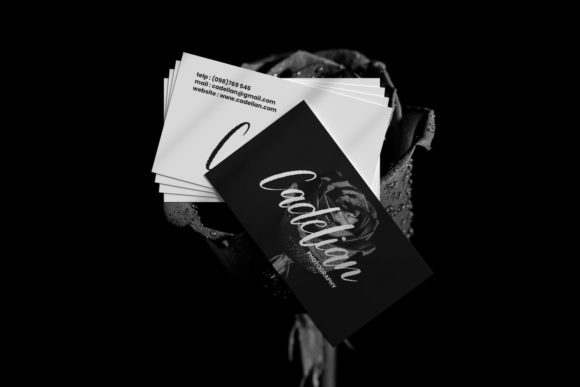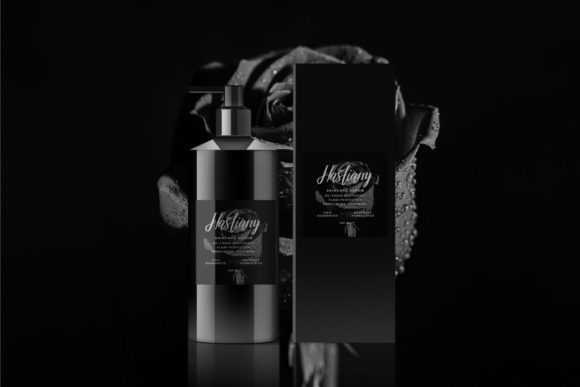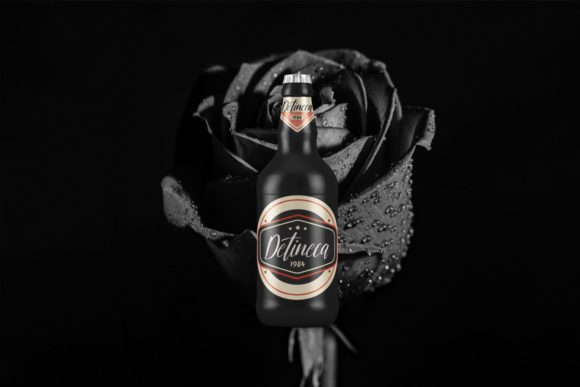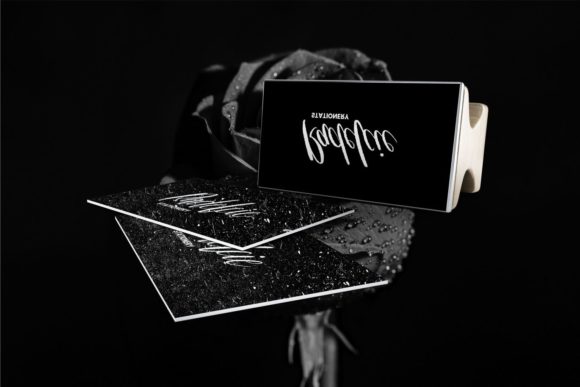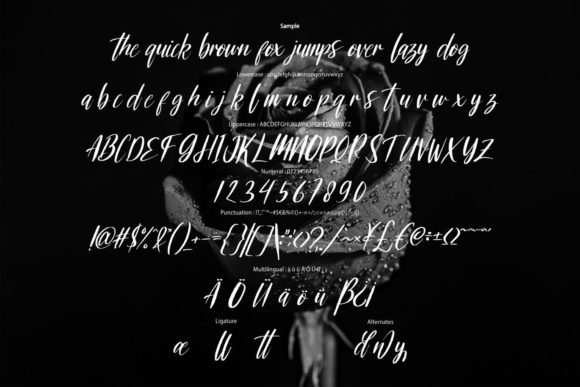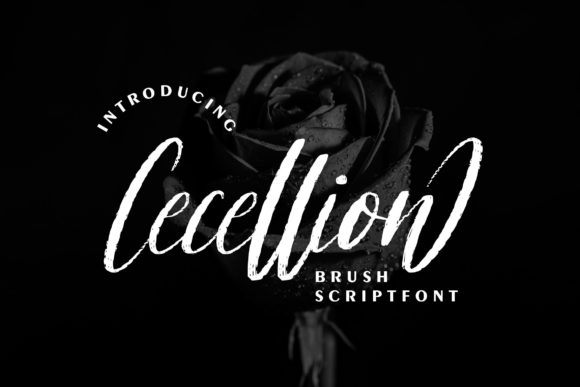
Cecellion Font: Elevate Your Designs with a Casual yet Stylish Handwritten Touch
In the world of design, fonts play a pivotal role in conveying messages, evoking emotions, and creating lasting impressions. Among the myriad of fonts available, Cecellion stands out as a casual and stylish handwritten font that has been gaining popularity among designers and crafters alike. This beautiful font is not just a typeface; it’s an artistic statement that can breathe life into your designs, making them more engaging and visually appealing.
The Unique Charm of Cecellion
Cecellion is characterized by its unique and beautiful touch, which sets it apart from more conventional fonts. Every letter in the Cecellion font has been crafted with care to ensure that it carries a distinct personality. This distinctiveness makes Cecellion an excellent choice for creating eye-catching logos, branding materials, and quotes that stand out in a crowd.
One of the key advantages of the Cecellion font is its versatility. Whether you’re working on a project that requires a modern and fresh feel or something more traditional and elegant, Cecellion can adapt to your needs. Its casual yet stylish nature makes it suitable for a wide range of design applications, from digital media to print materials.
Applications of Cecellion Font
So, where can you use the Cecellion font? The possibilities are endless:
- Logos and Branding: Create memorable logos and branding materials that reflect your brand’s personality with Cecellion’s unique touch.
- Quotes and Typography: Add a personal and artistic touch to your quotes and typography projects, making them more engaging and shareable.
- Digital and Print Media: Use Cecellion in your digital content, such as blog posts, social media graphics, and email newsletters, as well as in print materials like brochures, posters, and business cards.
- Crafting and DIY Projects: If you’re into crafting or DIY projects, Cecellion can add a professional and personalized touch to your handmade cards, journals, and other creative endeavors.
Why Choose Cecellion?
With so many fonts available, why should Cecellion be your go-to choice? Here are a few reasons:
- Uniqueness: Cecellion offers a fresh and unique aesthetic that can help your designs stand out.
- Readability: Despite its artistic nature, Cecellion maintains a high level of readability, making it suitable for both headings and body text.
- Emotional Connection: The casual and stylish feel of Cecellion can help create an emotional connection with your audience, making your message more impactful.
Tips for Using Cecellion Effectively
To make the most of Cecellion, consider the following tips:
- Mix and Match: Don’t be afraid to experiment by mixing Cecellion with other fonts to create visual interest and hierarchy in your designs.
- Adjust Size and Color: Play with the size and color of Cecellion to emphasize certain parts of your text and create a focal point.
- Consider the Context: Think about the context in which your design will be used and adjust your use of Cecellion accordingly to ensure it resonates with your audience.
Cecellion is more than just a font; it’s a design element that can elevate your projects and make them more engaging. Its casual yet stylish handwritten touch offers a unique way to convey your message, create memorable branding, and add a personal touch to your designs. Whether you’re a professional designer or a crafter, Cecellion is an excellent choice for anyone looking to add a bit of elegance and personality to their work. So, why settle for ordinary when you can make your designs extraordinary with Cecellion?